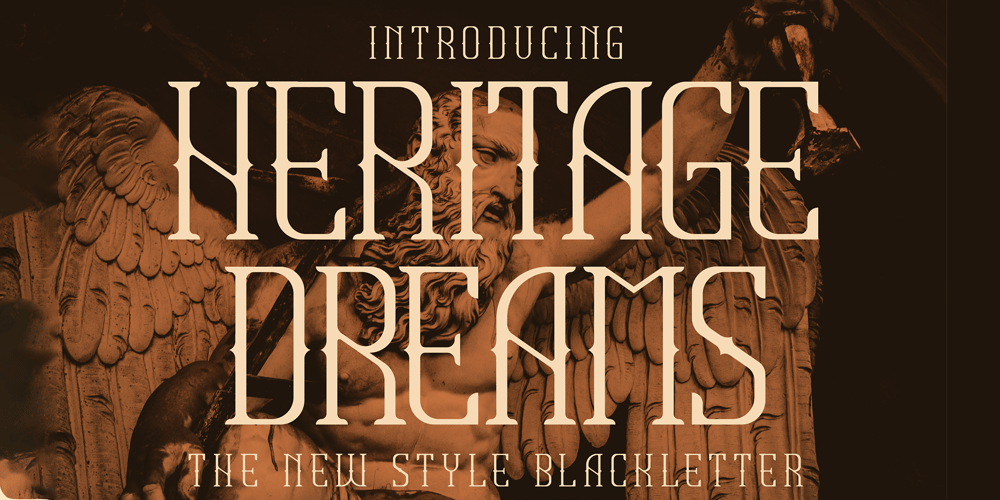
HERITAGE DREAMS Font Family was designed by Heru Utama Putra and published by Letterena Studios. HERITAGE DREAMS contains 2 styles and family package options. Heritage Dreams is a cool and vintage styled serif font. No matter the topic, this font will be an incredible asset to your fonts’ library, as it has the potential to elevate any creation.